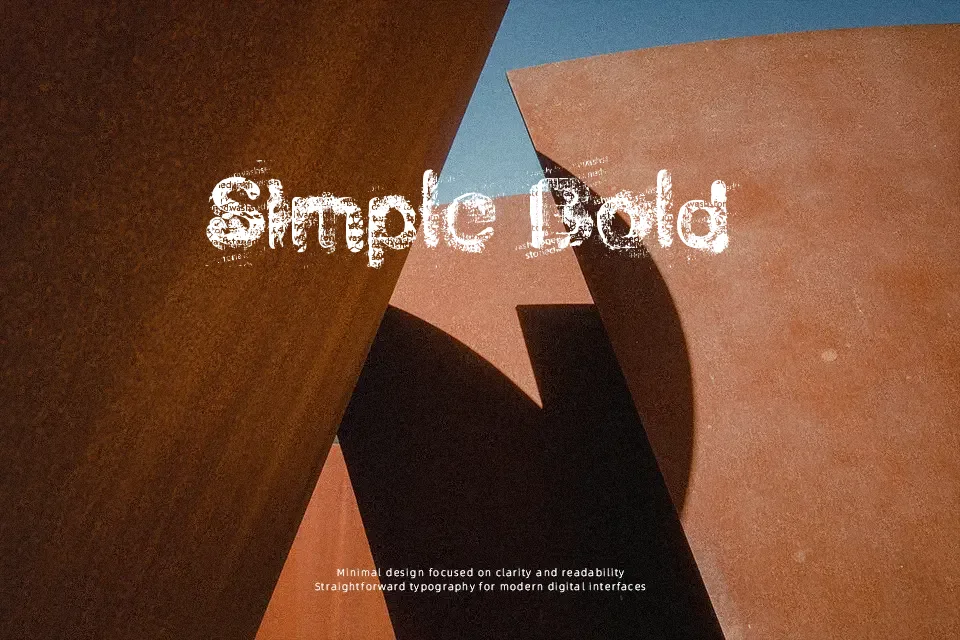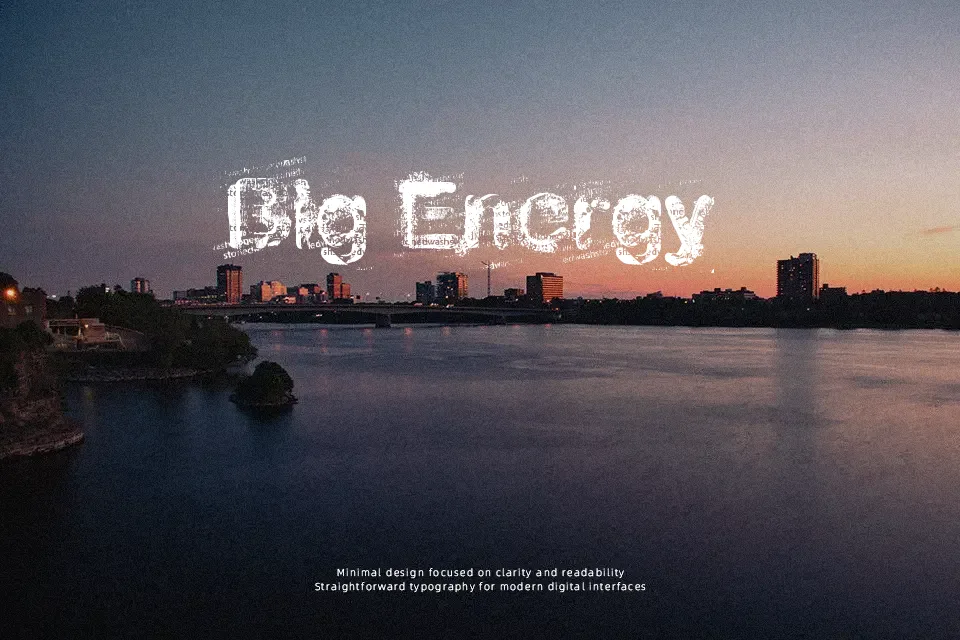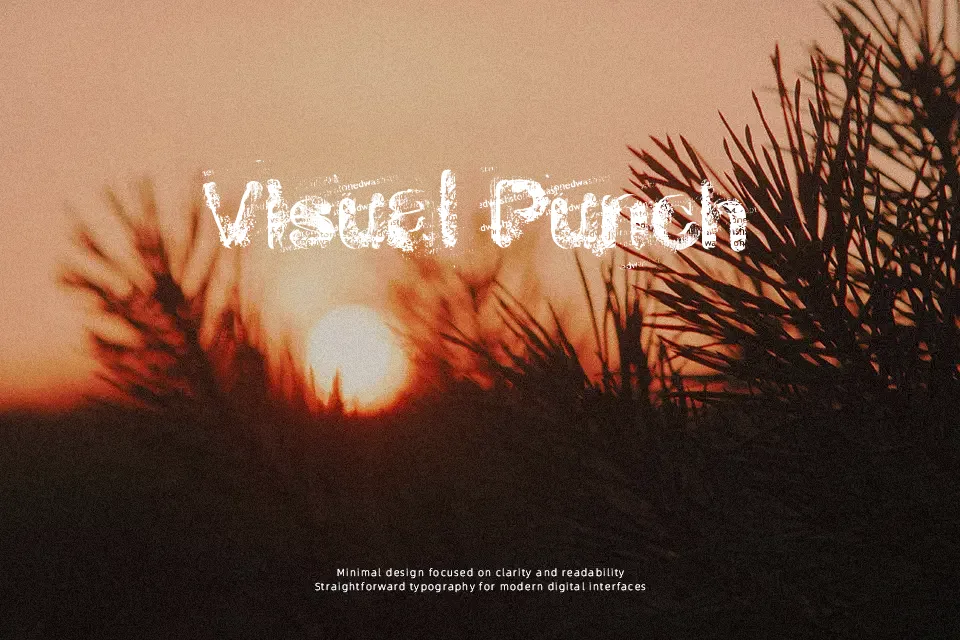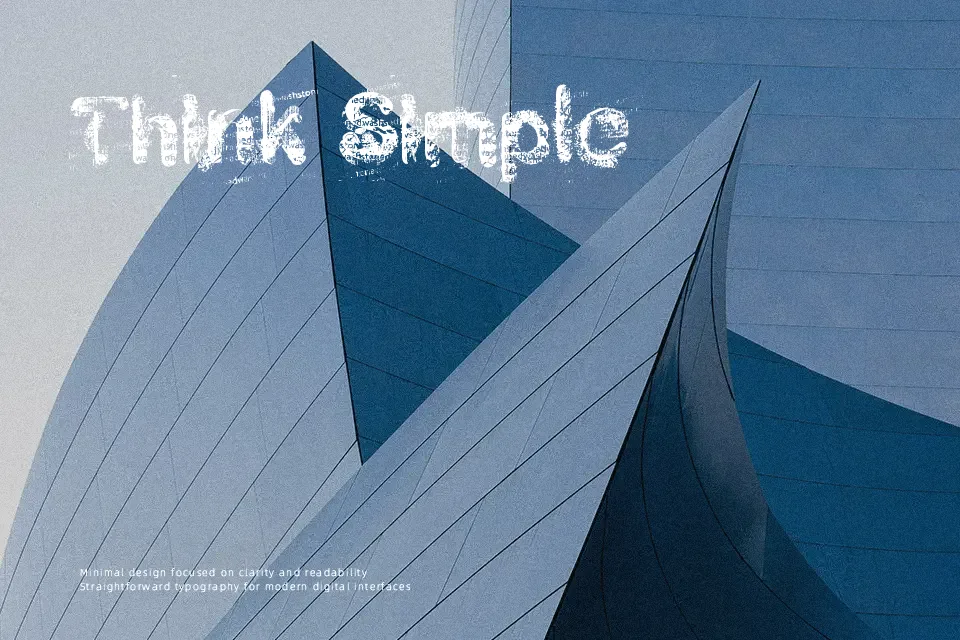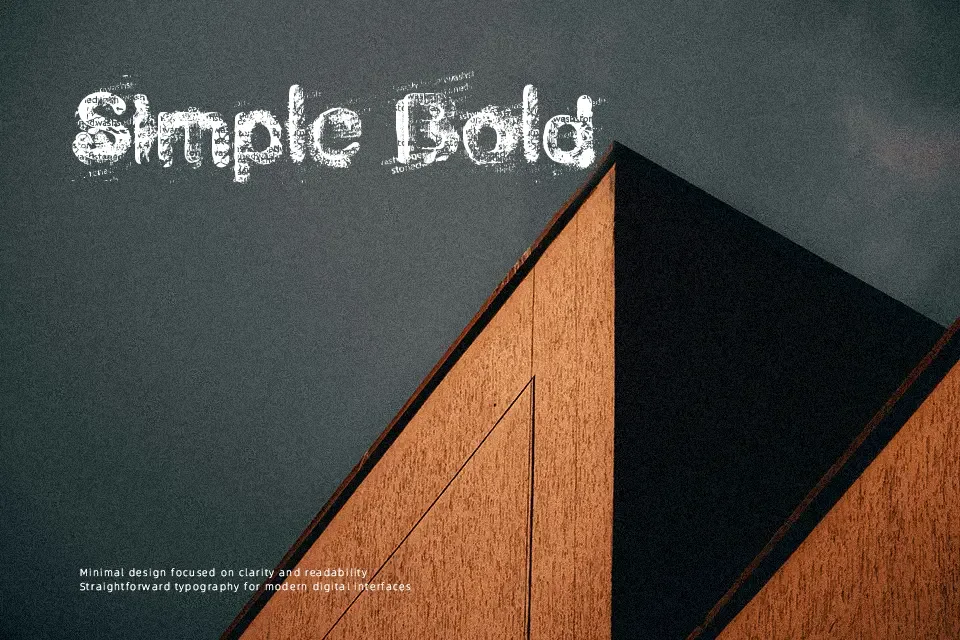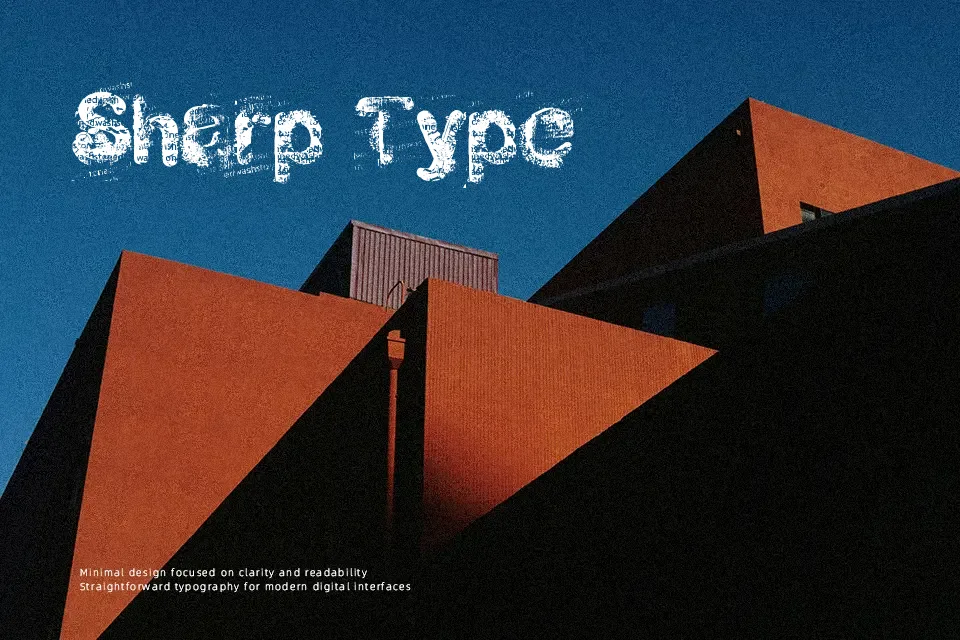
Stoned Wash 6 Font
Stoned Wash 6 Font presents a heavily weathered display style built on bold, solid letterforms with an eroded texture. The irregular distress patterns and granular cutouts create a tactile, stone-washed aesthetic across each glyph. Proportions remain sturdy and compact, while character spacing is moderately tight to keep display words cohesive. In large formats, such as band merchandise or street apparel graphics, the heavy weights offer immediate visual weight. However, this dense surface degradation significantly impairs legibility at small sizes, making the typeface unsuitable for long paragraphs or interface copy. The textured fills add rugged character to brief headlines where individual letter outlines stay clear.
– street apparel graphics
– music festival posters
– vintage product packaging
– skateboard deck graphics
– long paragraph text
– small interface labels
– corporate document body copy
– dense editorial layouts
Perfect for fashion, headline, and music, with a bold and decorative style.